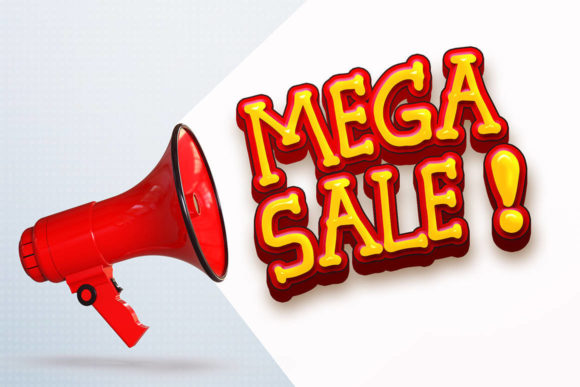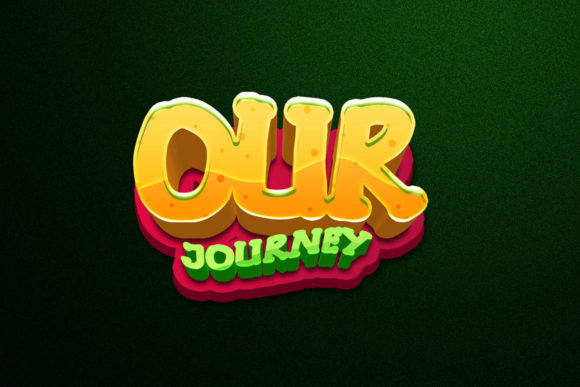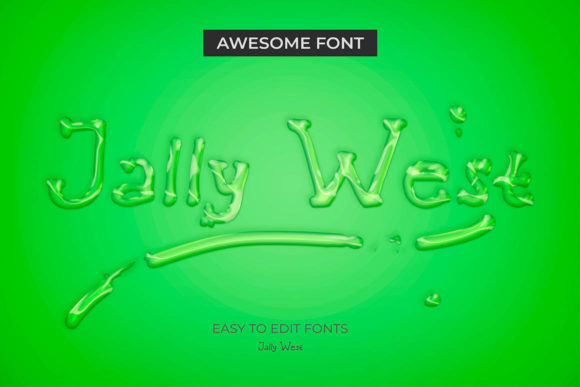
Introduction to Jally West Font
Jally West is a cute and quirky display font.
It will add an incredibly joyful touch to your designs Add this beautiful display font to each of your creative ideas and notice how it makes them stand out.
Key Features of Jally West Font
Why Choose Jally West Font?
Jally West Font offers exceptional quality and versatility, making it a valuable addition to your design toolkit. Whether you’re creating for personal projects or commercial use, Jally West Font delivers professional results.